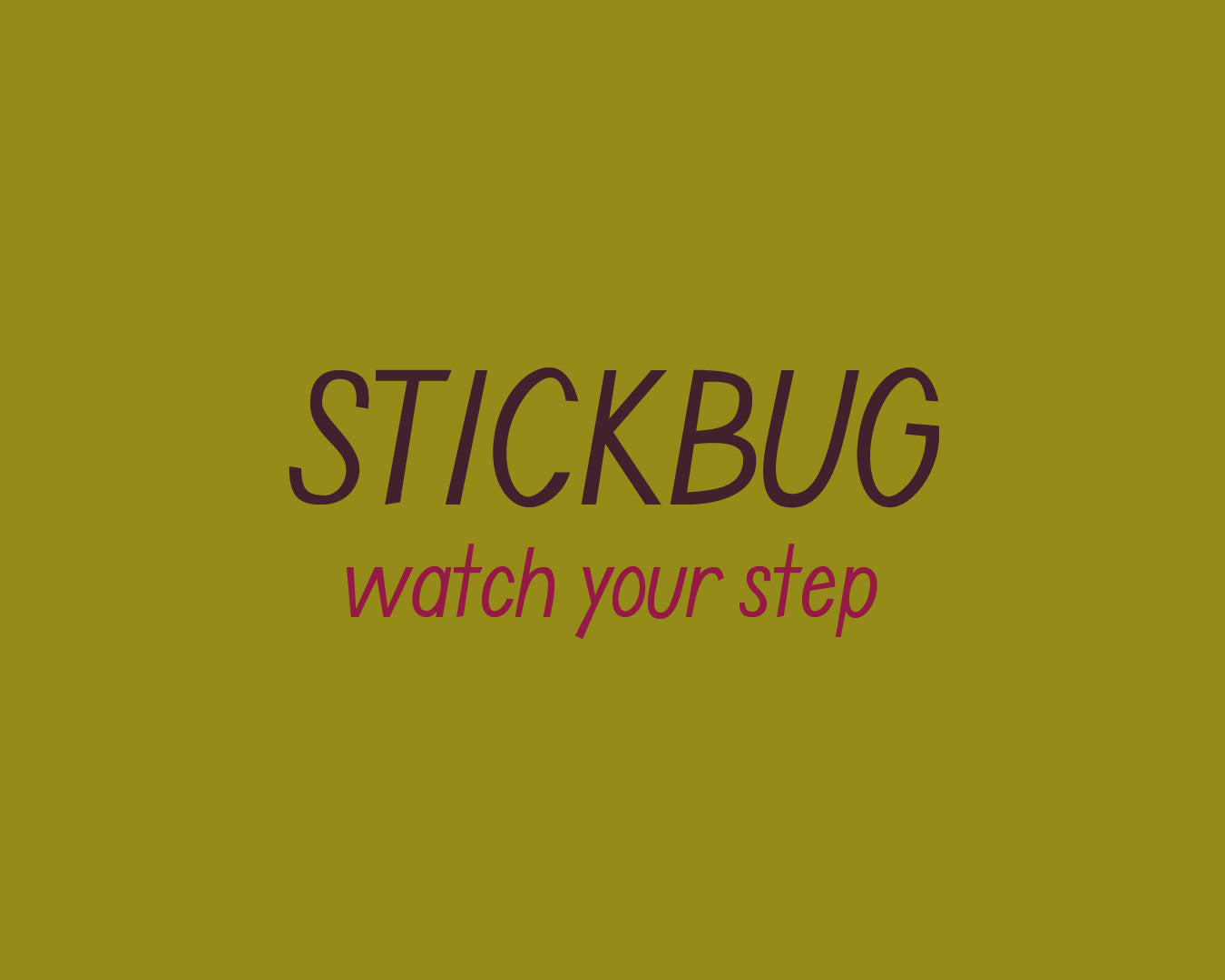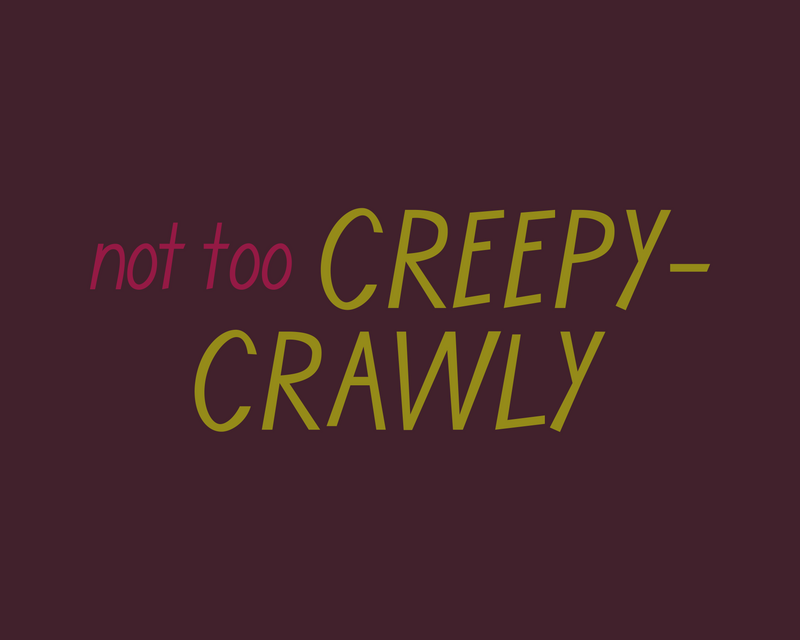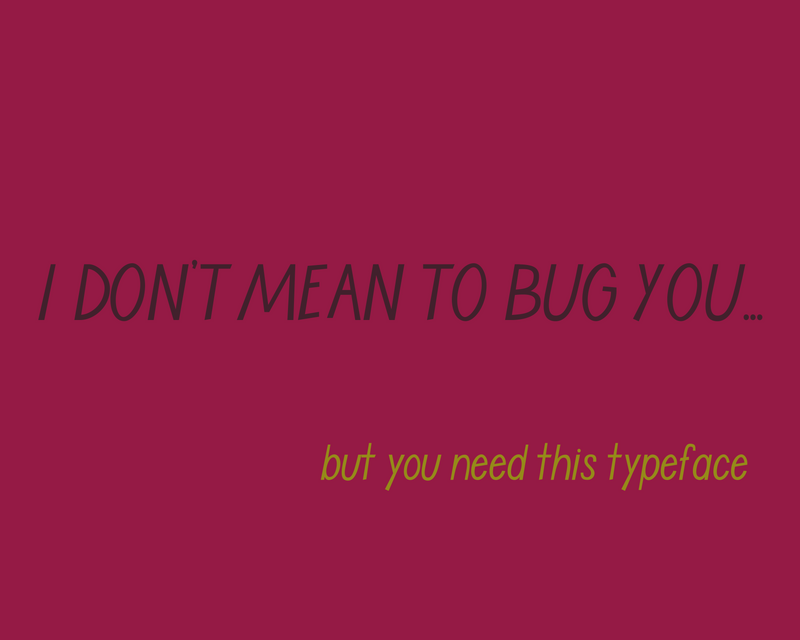
Stickbug
With long, thin strokes and a slight weight variation, Stickbug takes up space without getting in the way. Not too creepy-crawly, this typeface strikes the perfect balance between angular and organic.